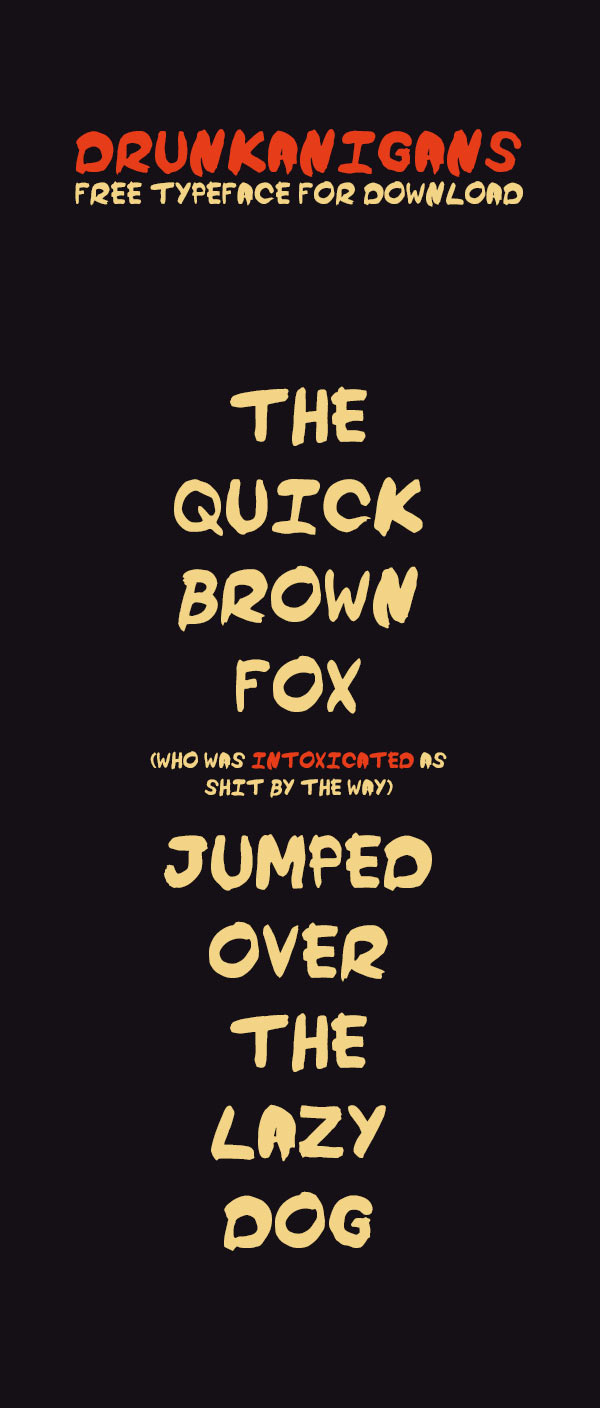
Drunkanigans is a brush written free font that was originally created for a drinking game. But later it turned into a project of learning and experimentation.
Designer: Tim McNeill